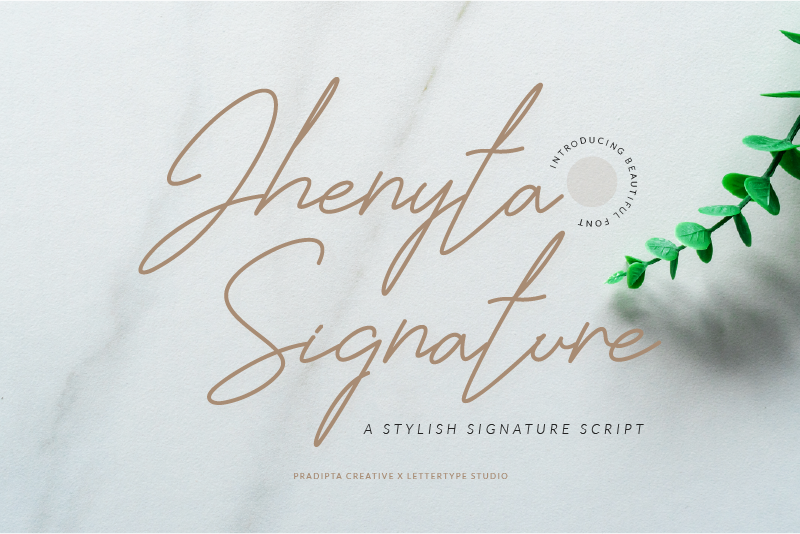
Jhenyta Signature Font
About Jhenyta Signature
Jhenyta Signature is a thin and elegant handwritten font. It looks beautiful on a variety of designs requiring a personalized style, such as wedding invitations, thank you cards, weddings, greeting cards, logos and so on.